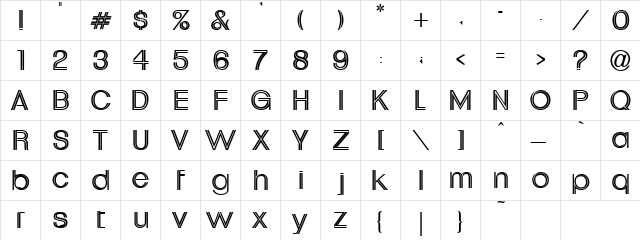
Xippy Regular
Design Context for Xippy Typeface
Xippy offers clean, dependable letterforms without strong stylistic allegiance, making it a practical choice for designers who need flexibility.